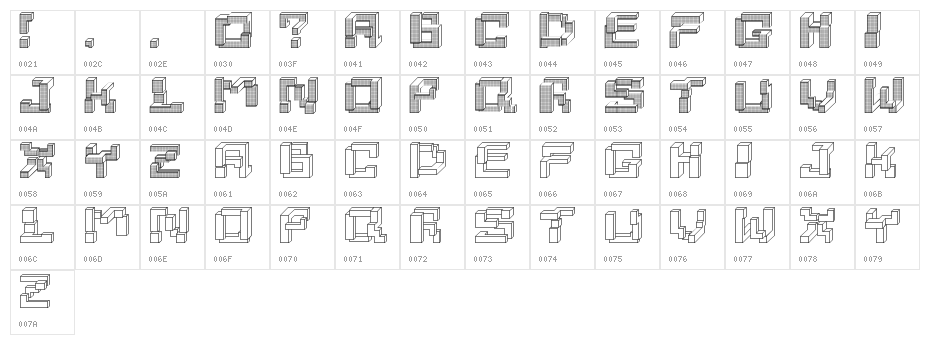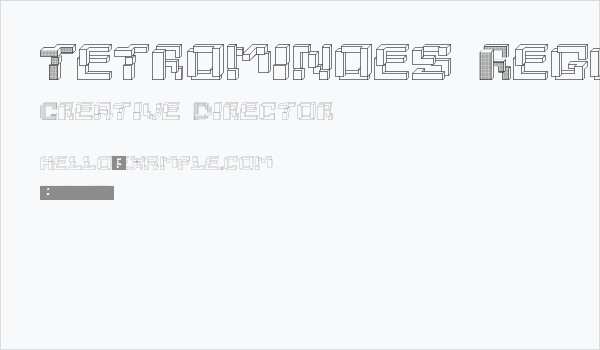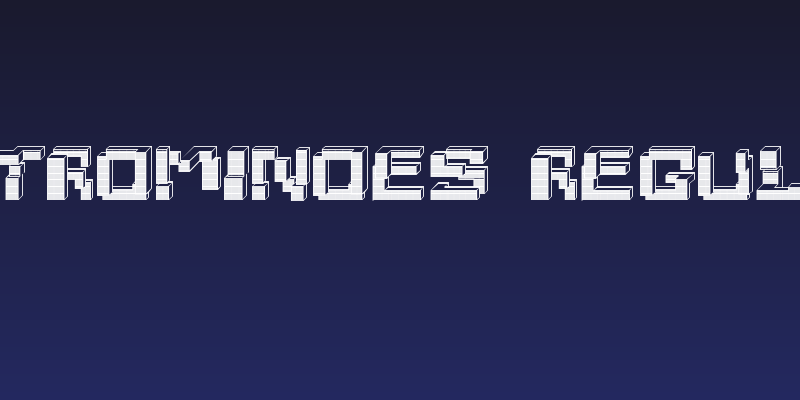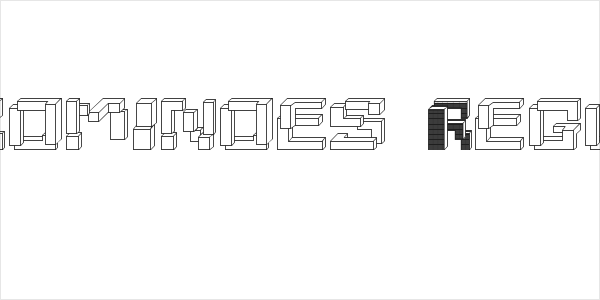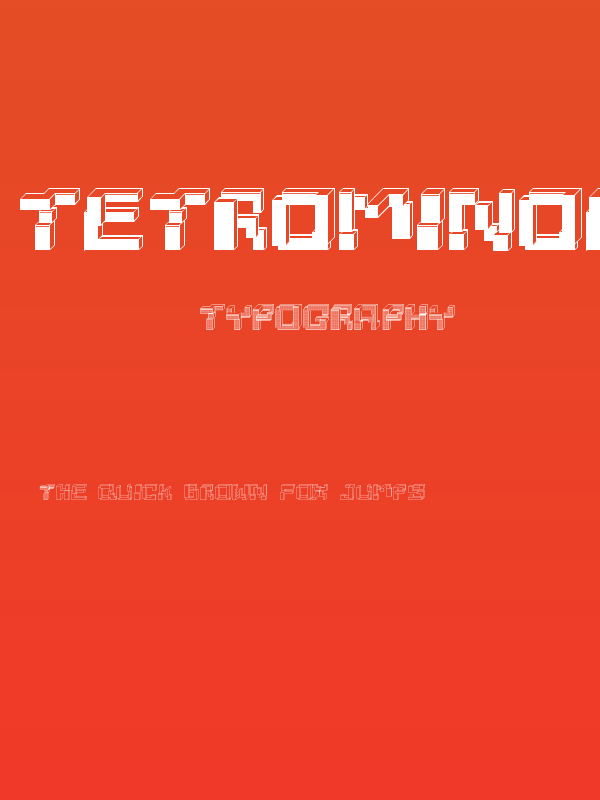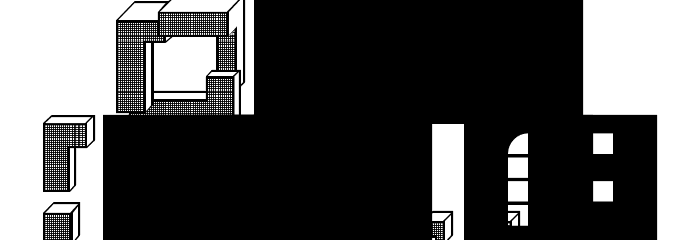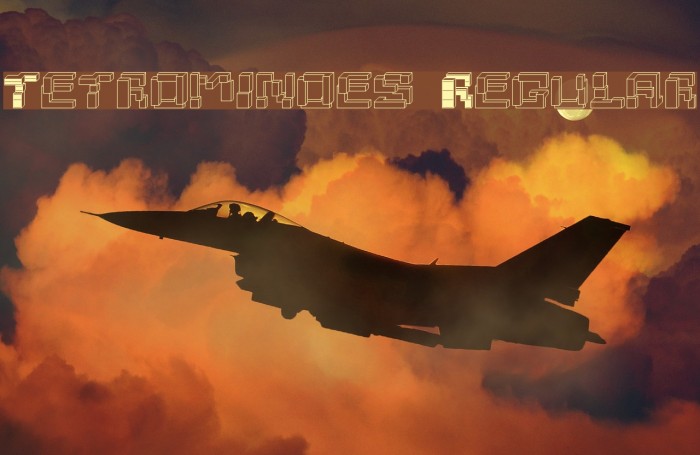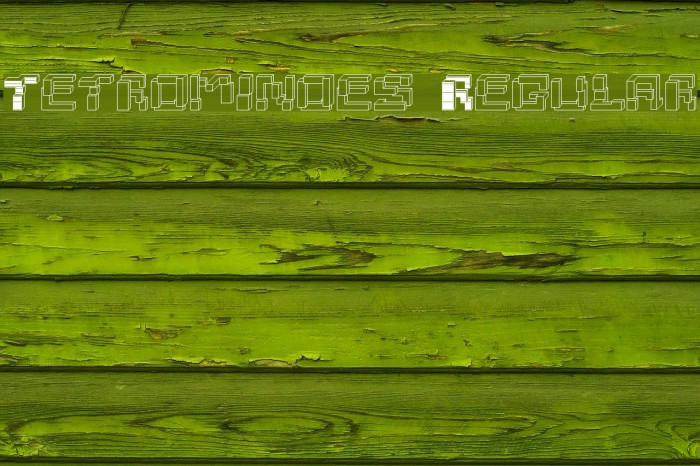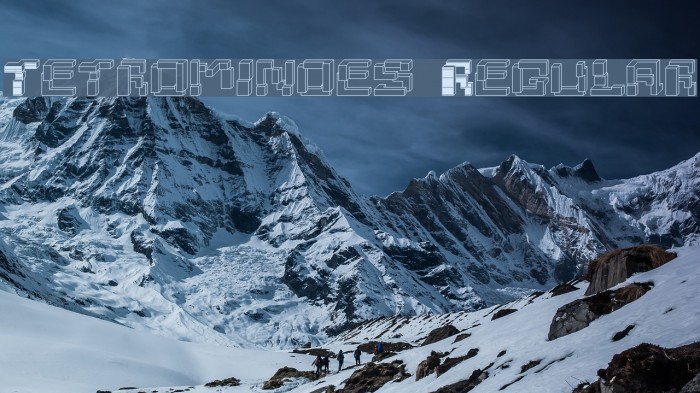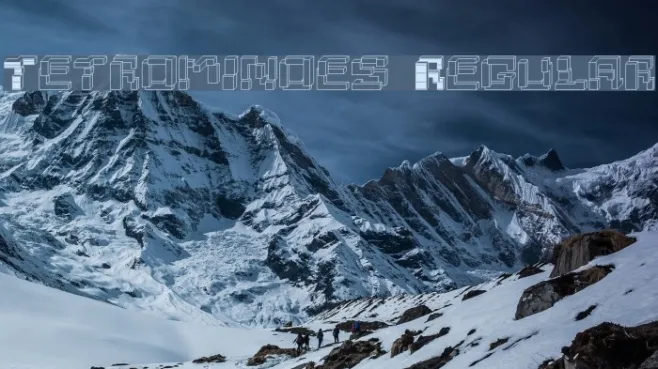
Tetrominoes Regular Font
Tetrominoes Regular Description
This font features a bold, three-dimensional block style reminiscent of classic video game graphics. Each character is constructed with a grid-like texture, giving it a pixelated, retro appearance. The letters are outlined with a thick border, enhancing the 3D effect and making them stand out prominently. The geometric design is consistent across uppercase and lowercase letters, as well as numbers and special characters, creating a cohesive and visually striking typeface. Its unique structure is both playful and nostalgic, ideal for projects that aim to capture a sense of fun and creativity.
| Overall Style | Retro, Playful |
| Proposed Projects | Ideal for video game designs, retro-themed posters, and creative branding projects. |